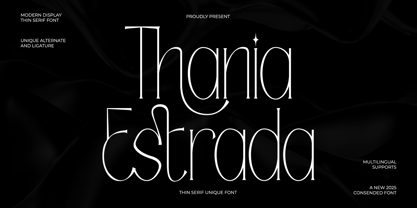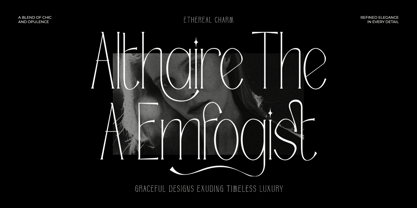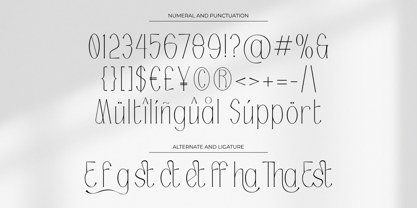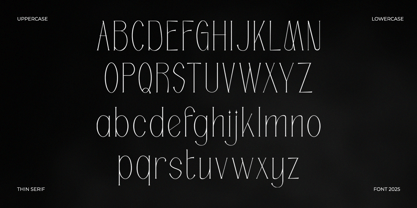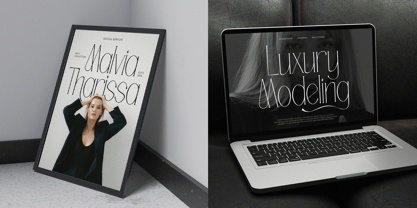
Thania Estrada
by Inviline
The Thania Estrada Font Family was designed by Virgiawan Listanto and published by Inviline. Thania Estrada contains 1 styles.
Elevate your designs with this exquisitely thin, unique serif font. Its delicate yet striking character lends sophistication to logos, branding, wedding invitations, and more. A versatile and modern typeface for discerning designers.
Designers: Virgiawan Listanto
Publisher: Inviline
Foundry: Inviline
Design Owner: Inviline